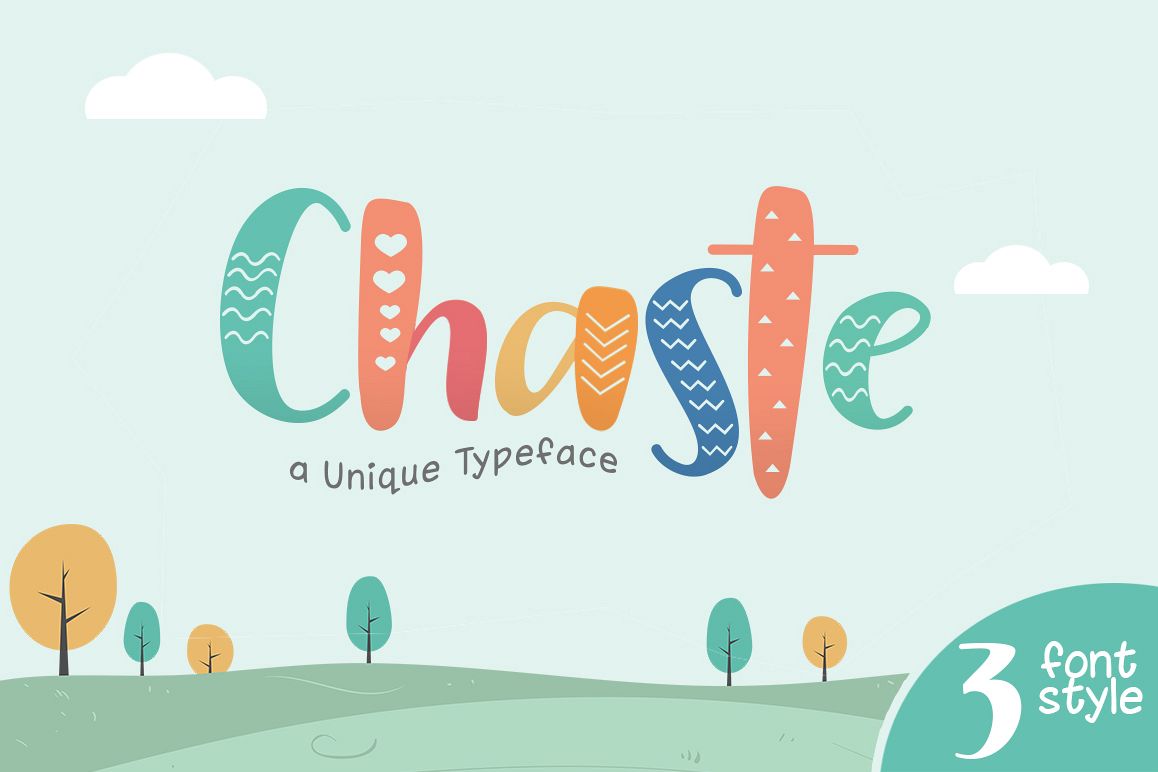
Chaste Display 3 Font
Chaste Display font with children and cheerful theme for your fun project. Chaste Display font has 3 different styles, regular, clean and outline. Chaste Display font suitable for logo, branding, greeting card, branding, poster and any design that you create.